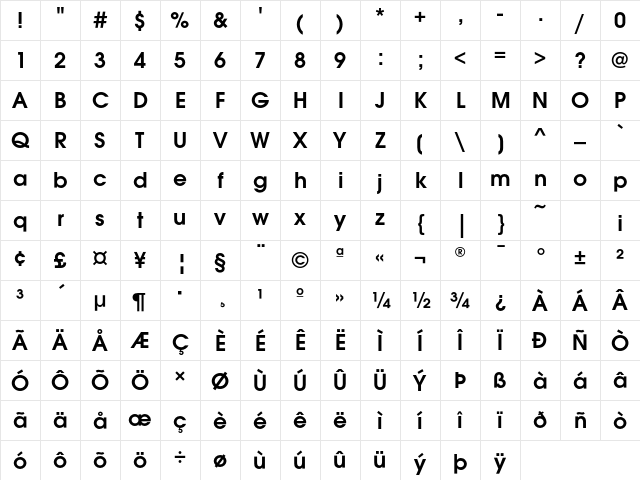
AvantGardEF Demi
Style: Demi
AvantGardEF Family
AvantGardEF Demi
Complete AvantGardEF Demi glyph index. Displaying only characters natively supported by AvantGardEF Demi font.
Design Context for AvantGardEF
AvantGardEF is a composed and adaptable typeface that performs quietly and consistently across a wide range of design contexts.